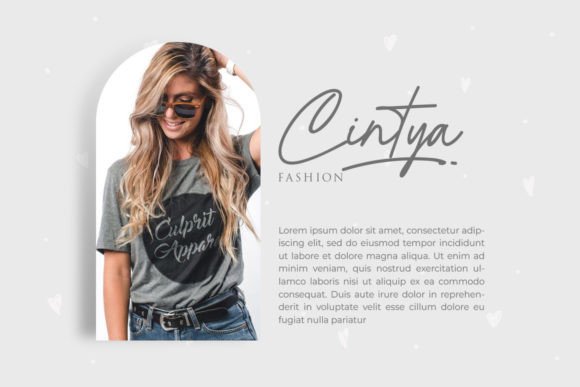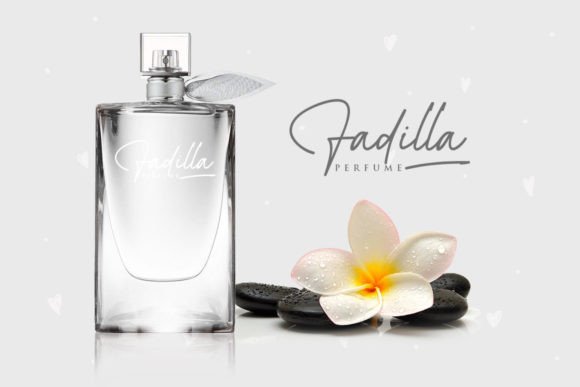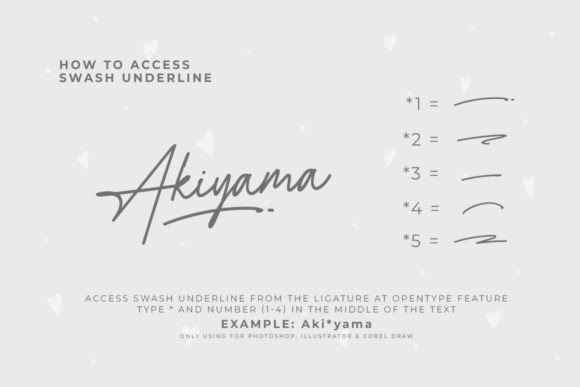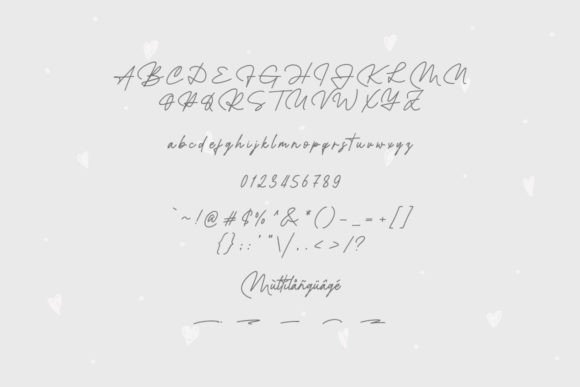
Beliath Font: The Perfect Addition to Your Design Arsenal
Are you tired of using the same old fonts in your design projects? Look no further than Beliath, a fresh and unique handwritten font that’s sure to add a touch of personality to any design. With its playful and delicate vibe, Beliath is the perfect choice for designers and crafters looking to create something truly special.
What Makes Beliath So Special?
Beliath is more than just a font – it’s an experience. Its unique blend of playfulness and elegance makes it perfect for a wide range of design projects, from wedding invitations and branding materials to social media graphics and more. Whether you’re a seasoned designer or just starting out, Beliath is sure to inspire you to create something amazing.
The Characteristics of Beliath
So, what makes Beliath so unique? Here are just a few of its standout characteristics:
- Handwritten with love: Beliath is a truly handmade font, with each letter carefully crafted to give it a personal and unique feel.
- Playful and delicate: Beliath has a lighthearted, whimsical vibe that’s perfect for designs that need a touch of personality.
- Versatile: Whether you’re designing a logo, a brochure, or a social media graphic, Beliath is the perfect choice.
- Elegant: Despite its playful nature, Beliath has an undeniable air of sophistication that makes it perfect for more formal designs.
How to Use Beliath in Your Designs
Ready to get started with Beliath? Here are a few tips for incorporating it into your designs:
- Pair it with bold colors: Beliath looks amazing paired with bright, bold colors that really make it pop.
- Use it for headings: Beliath is perfect for headings and titles, where its playful vibe can really shine.
- Mix it with other fonts: Don’t be afraid to pair Beliath with other fonts to create a unique and interesting design.
- Experiment with different sizes: Beliath looks amazing in a variety of sizes, from large headings to smaller body text.
Beliath and Design Trends
Beliath is a font that’s perfectly in tune with current design trends. Here are a few ways you can use it to stay on top of the latest design must-haves:
- Minimalism: Beliath’s delicate vibe makes it perfect for minimalist designs that focus on clean lines and simple shapes.
- Handwritten fonts: Beliath is part of a growing trend towards handwritten fonts that add a personal touch to designs.
- Branding: Beliath’s unique blend of playfulness and elegance makes it perfect for branding materials that need to stand out.
In conclusion, Beliath is a font that’s sure to inspire designers and crafters to create something truly special. With its playful and delicate vibe, it’s the perfect choice for a wide range of design projects. Whether you’re looking to add a touch of personality to your designs or simply want to try something new, Beliath is the perfect addition to your design arsenal.